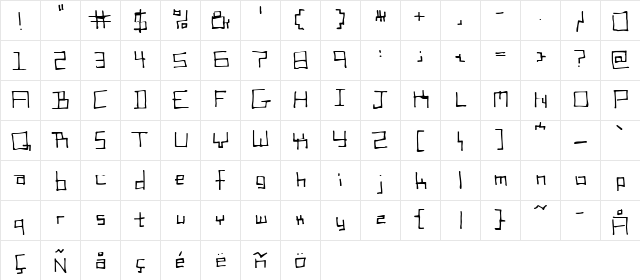
SCSI Port Regular
Design Context for SCSI Port Typeface
SCSI Port is a composed and adaptable typeface that performs quietly and consistently across a wide range of design contexts.